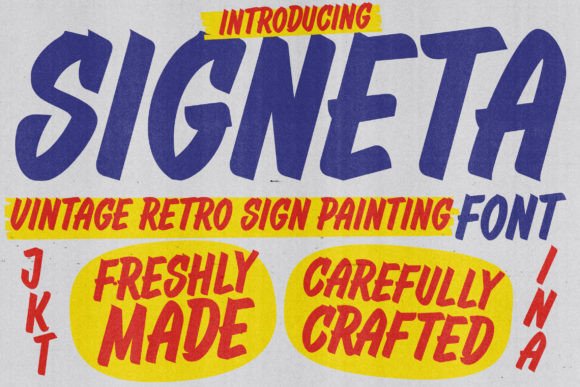
Introducing Signeta Font, the ultimate choice for sports apparel enthusiasts! Crafted by konstantinestudio, this script font is truly a masterpiece inspired by the iconic vintage sign paintings of the 60s and 70s. With its captivating visual appeal that once dominated the industry, this font is a must-have for anyone looking to elevate their designs with a touch of nostalgia.
Signeta Font is the perfect blend of timeless elegance and contemporary style. Its versatility knows no bounds, making it suitable for a wide range of applications. Whether you're designing a logo, creating branding materials, crafting stunning signage, decorating your space, or even publishing a book, this font will effortlessly enhance your project.
Imagine the impact Signeta Font will have on your sports apparel line. Your brand will stand out from the crowd with its unique and eye-catching aesthetics. Captivate your audience with powerful and memorable designs that evoke emotions of passion, strength, and determination. With Signeta Font, your merchandise will become an instant hit, leaving a lasting impression on your customers.
Not only is Signeta Font visually stunning, but it also offers unparalleled functionality. Its meticulously crafted letterforms ensure legibility, making it a perfect choice for both digital and print media. Whether you're designing a movie title, a series poster, or creating emblems for your team, this font will deliver exceptional results every time.
But Signeta Font is not just about aesthetics and functionality; it's about channeling the spirit of a bygone era. With each stroke and curve, this font tells a story of the past, reminding us of the golden age of sign paintings. By incorporating Signeta Font into your designs, you're not just creating visually appealing artwork; you're preserving a piece of history and paying homage to the artistry of the past.
Don't miss out on the opportunity to bring your designs to life with Signeta Font. Elevate your creations and leave a lasting impression with this captivating script font. Join countless designers and creative minds who have already embraced the magic of Signeta Font and witnessed the transformative power it holds.